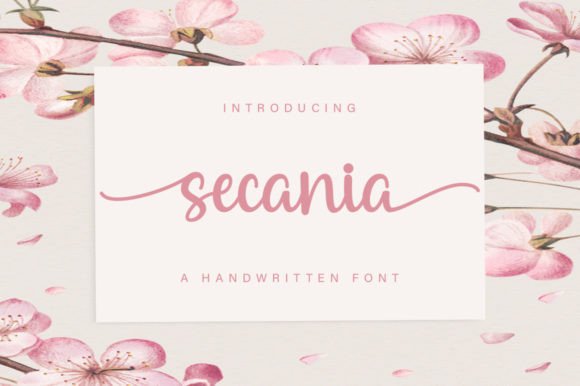
Unleash the Alluring Charm of Secania Font: The Epitome of Beauty and Elegance
Adorn your creative projects with the captivating allure of Secania Font, a mesmerizing handwritten font that exudes sophistication and elegance. Step into a world of visual artistry where your words dance with grace, leaving an indelible mark on the hearts of your audience.
Secania Font: A Symphony of Beauty
Secania Font is not just a collection of letters; it's an orchestra of visual harmony, a symphony of beauty that transforms ordinary words into extraordinary expressions. Its meticulously crafted characters possess an innate charm, evoking a sense of timeless elegance that elevates your designs to new heights of visual appeal.
Designed with Unparalleled Versatility
Secania Font's versatility knows no bounds, adapting seamlessly to a myriad of creative endeavors. Whether you're crafting heartfelt greeting cards, designing captivating logos, or creating eye-catching headlines that demand attention, Secania Font rises to the occasion, effortlessly enhancing your projects with its inherent grace and poise.
Effortless Access to a World of Creativity
Secania Font is PUA encoded, granting you effortless access to a treasure trove of glyphs and swashes, empowering you to unleash your creativity without limitations. Explore the boundless possibilities, adding intricate details and flourishes that bring your designs to life, transforming them into captivating masterpieces that leave a lasting impression.
Secania Font: The Perfect Choice for Beauty Products
Secania Font possesses an innate affinity with beauty products, its delicate strokes and flowing curves mirroring the essence of femininity and allure. It's the perfect font to adorn packaging, labels, and marketing materials, capturing the essence of beauty and inviting customers to indulge in a world of elegance and sophistication.